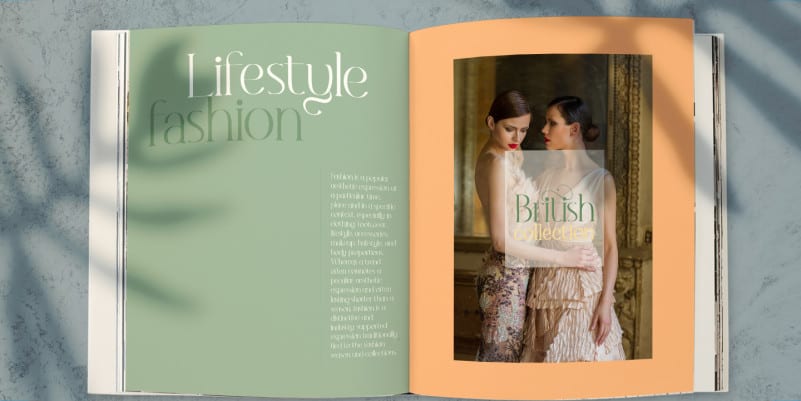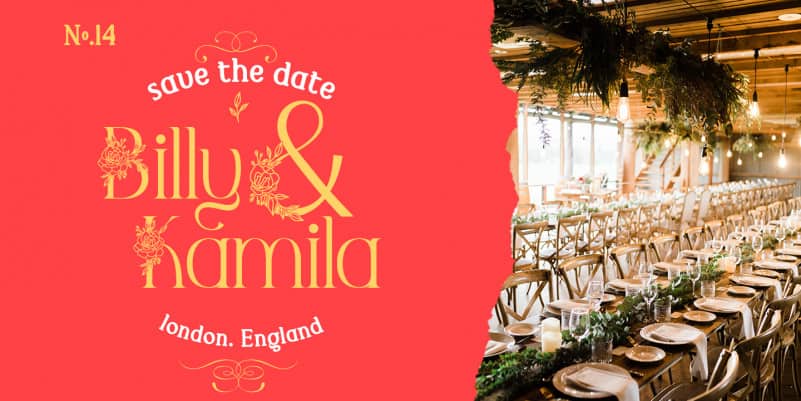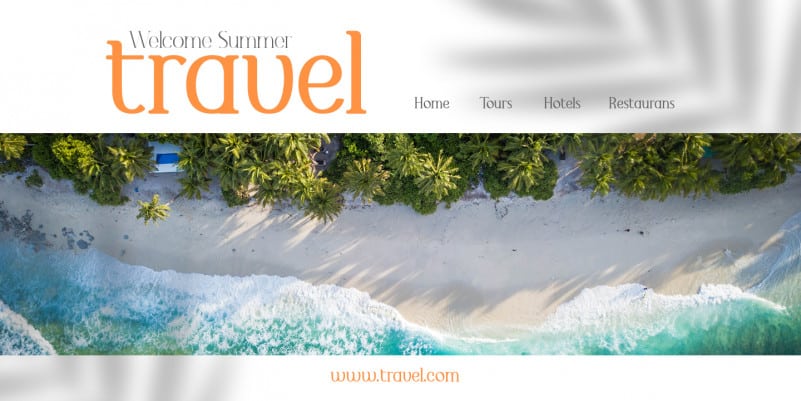
El Katana – Flowers Serif Font
Hi there, Really excited to introduce El Katana – Flowers Serif Font is a luxury serif family with flowers in each type so you can safe more time to design and comes with much version! Comes with 72 font file, 3 weight and flourish ornament. A lot of stylish will makes this font suitable for your any project design.